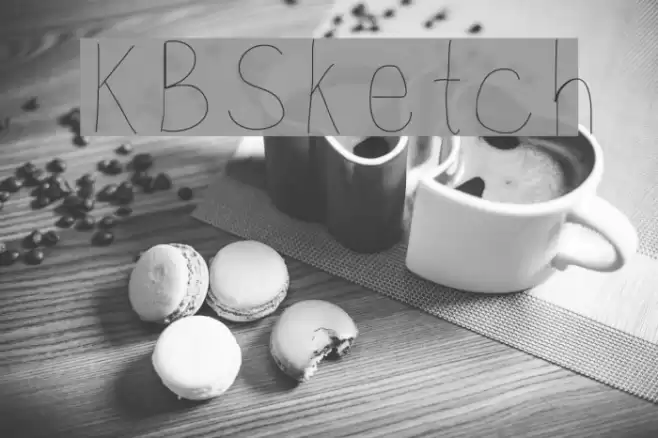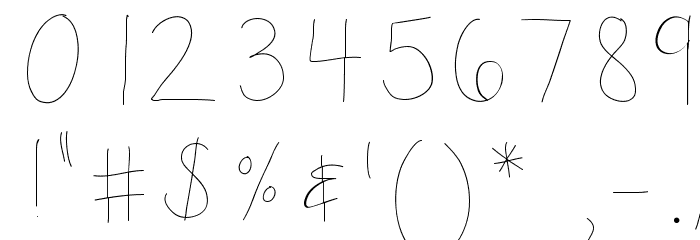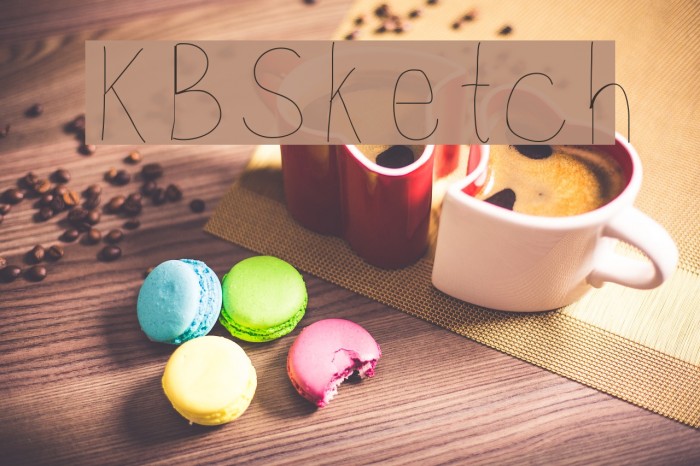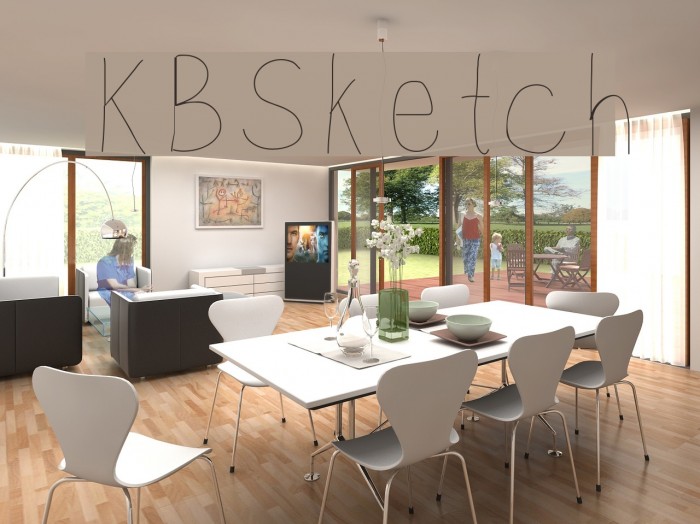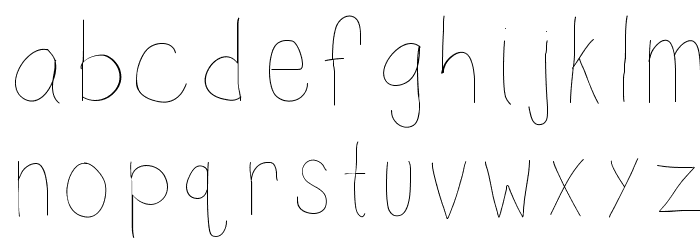
KBSketch Font
KBSketch Description
This font features a playful and informal handwritten style, characterized by its thin and slightly uneven strokes that mimic the natural flow of handwriting. The letters have a casual and relaxed appearance, with a slight tilt and varying line thickness that adds a touch of whimsy. The uppercase and lowercase letters maintain a consistent style, with rounded edges and open counters, making it easy to read while retaining a unique personality. The numerals and special characters follow the same aesthetic, ensuring a cohesive look across all text elements.
A playful handwritten font with thin, uneven strokes and a casual style from Uncategorized fonts.
- Proposed Projects: Ideal for children's books, greeting cards, personal blogs, and creative branding projects.
- Overall Style: Casual
- Use Case: Headlines, Informal text, Creative projects